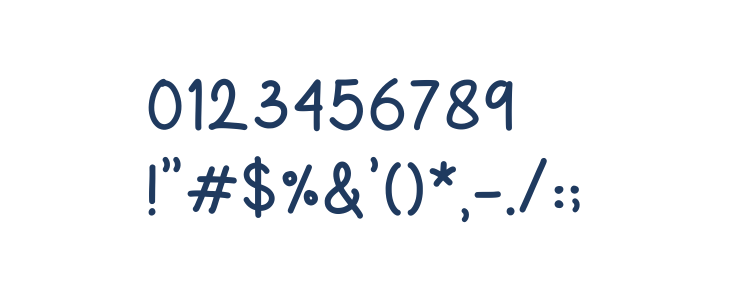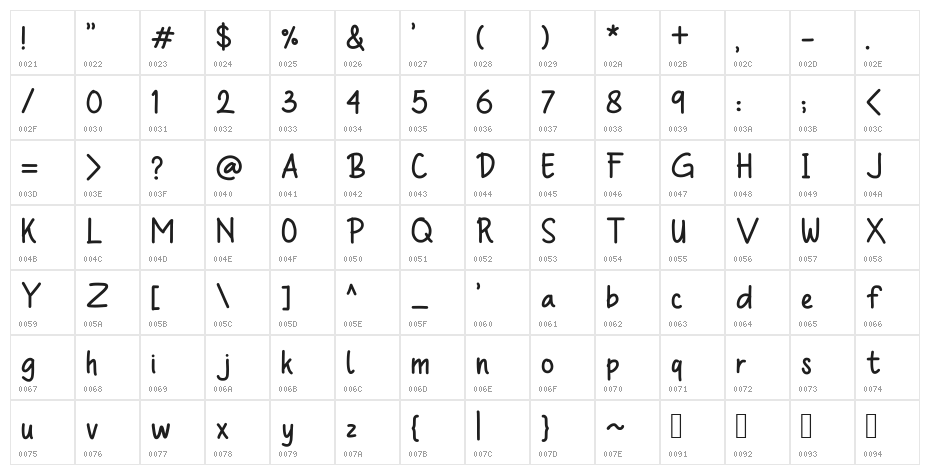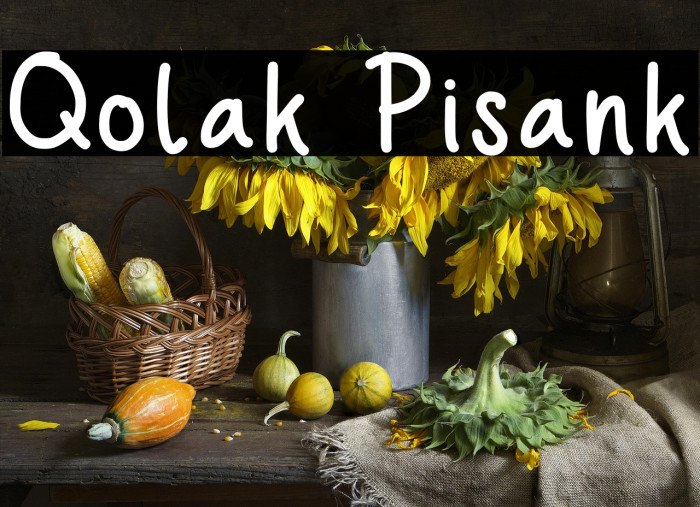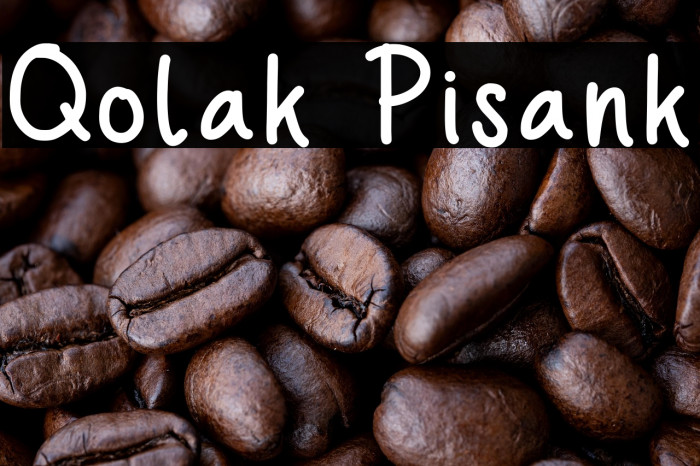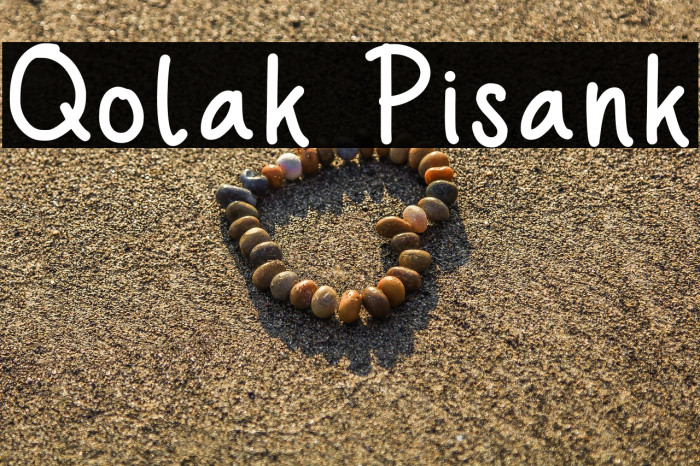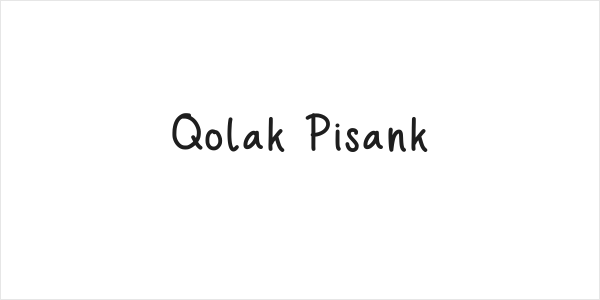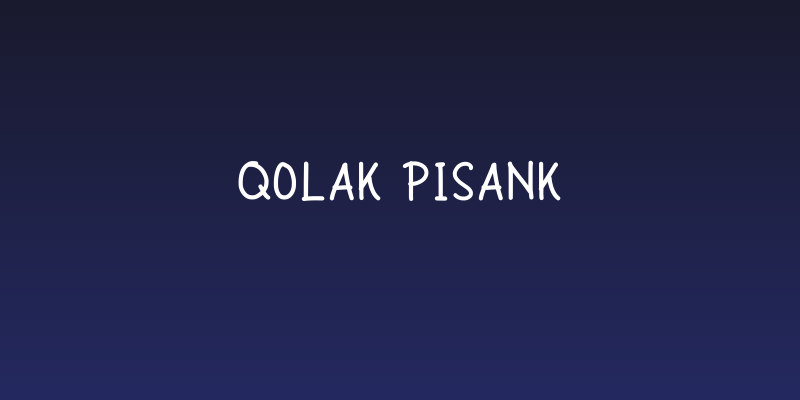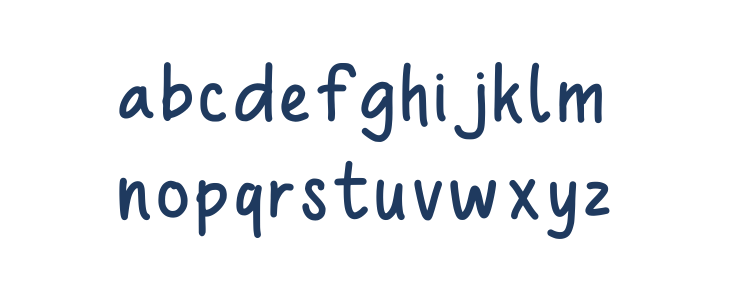
Qolak Pisank Font
Qolak Pisank Description
This font features a playful and casual handwritten style, characterized by its rounded and slightly irregular letterforms. The strokes are consistent in width, giving it a uniform appearance while maintaining a friendly and approachable vibe. The uppercase letters are bold and prominent, while the lowercase letters retain a smooth flow, enhancing readability. Numbers and special characters are crafted with the same playful touch, making them suitable for informal contexts. The overall design is clean and legible, perfect for projects that require a personal and human touch.
| Use Case | Headlines, Informal text, Branding |
| Proposed Projects | Ideal for greeting cards, children's books, casual branding, and social media graphics. |